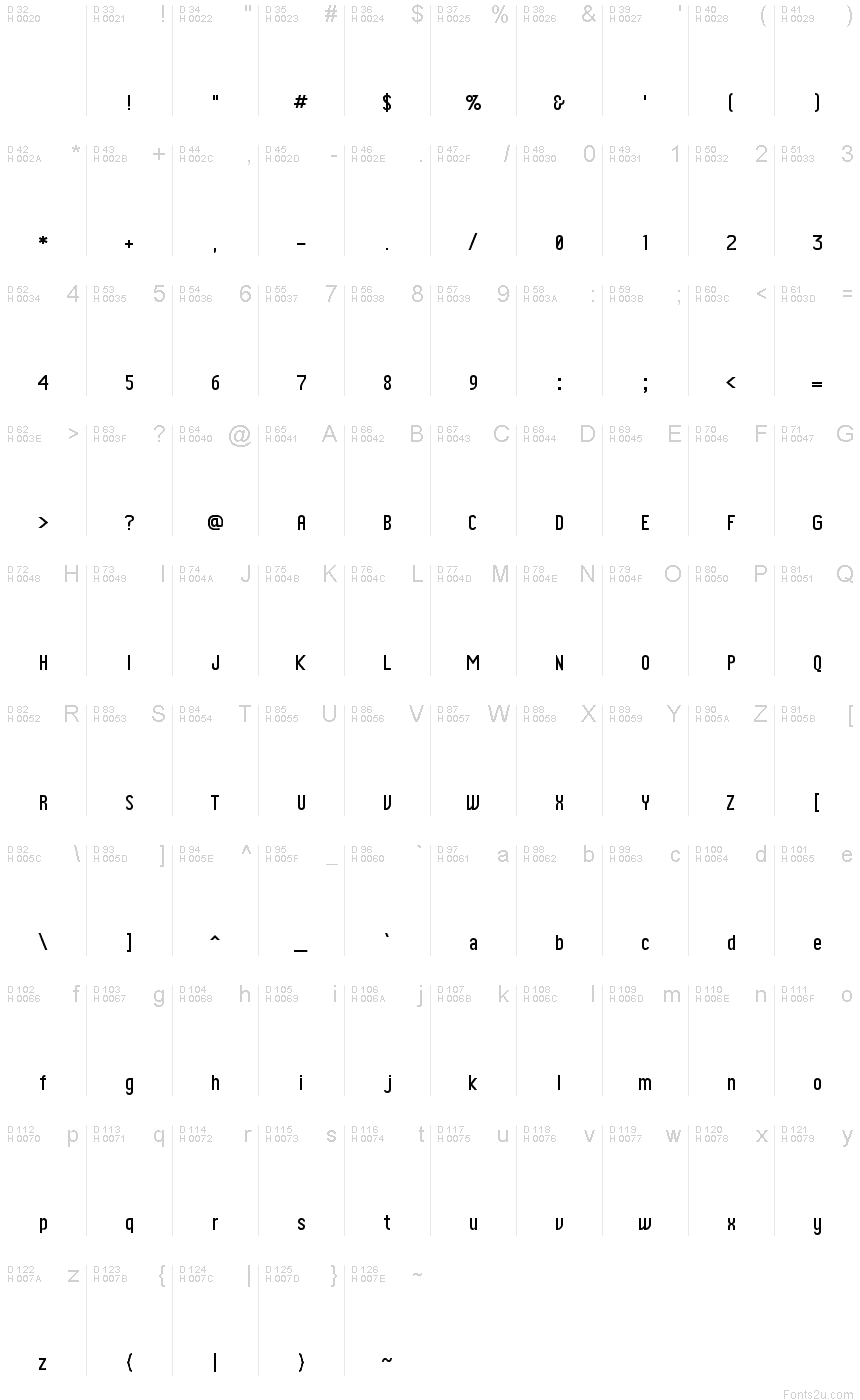
Chica Mono
Chica Mono font by Harold Lohner is a free sans serif typeface that brings the classic Macintosh Chicago vibe into crisp, vector form. Its even strokes, squared curves, and compact proportions echo early system menus and dialog boxes, but without the chunky pixels or awkward spacing. The result is a clean, legible texture that feels both nostalgic and surprisingly modern, like an old OS running on new hardware.
Using Chica Mono, you get a ready-made solution for retro tech interfaces, UI mockups, indie games, zines, synthwave posters, and branding for hardware or software projects. This free font holds up well at small sizes while still having enough character for bold titles. Pair it with a simple geometric sans in lighter weights to handle longer text and let Chica Mono carry the headings and labels.